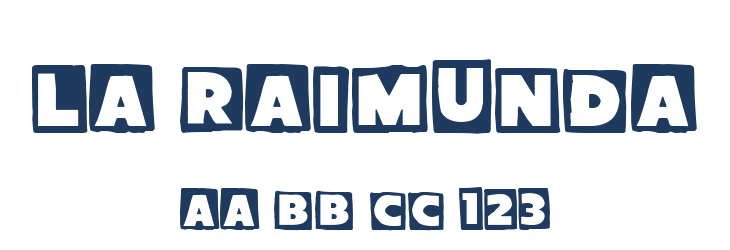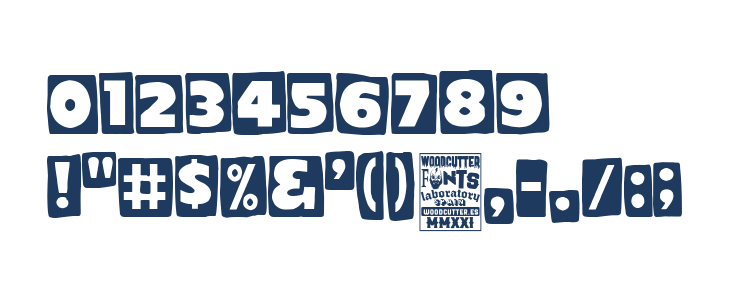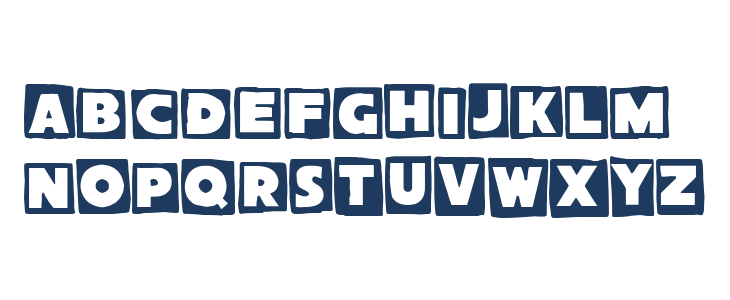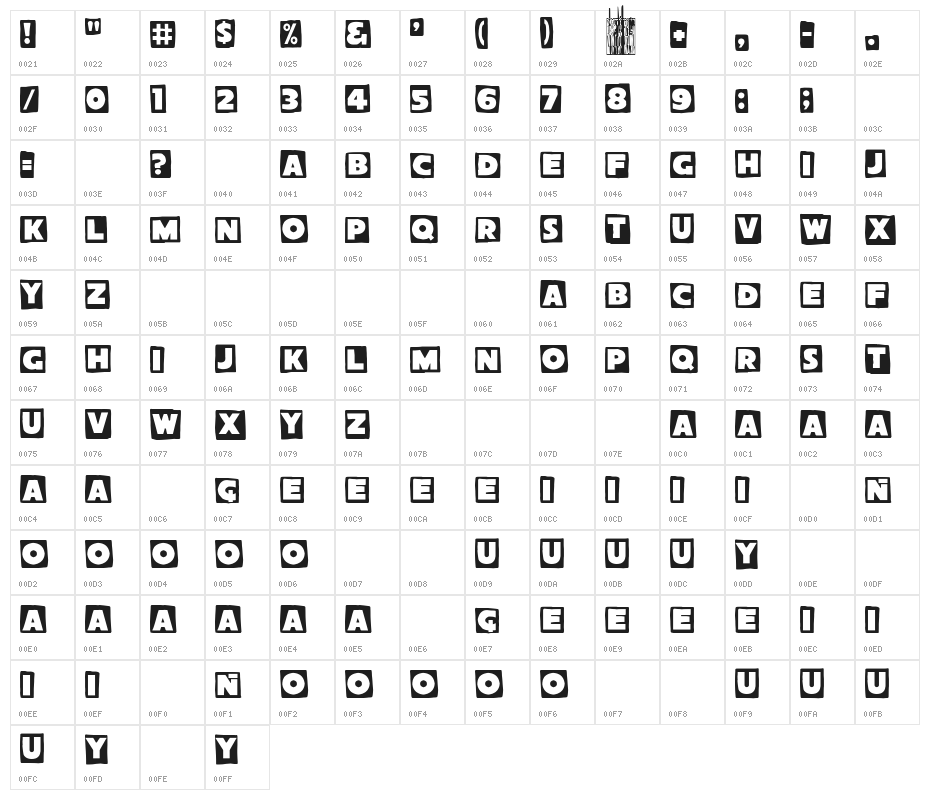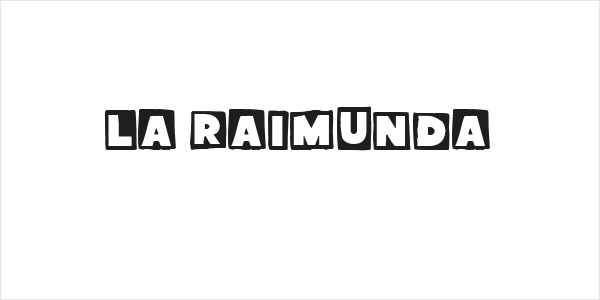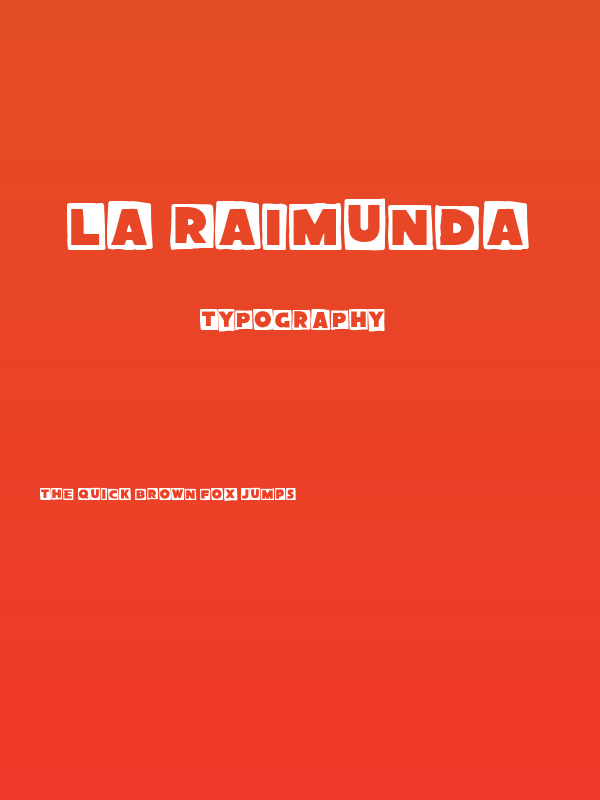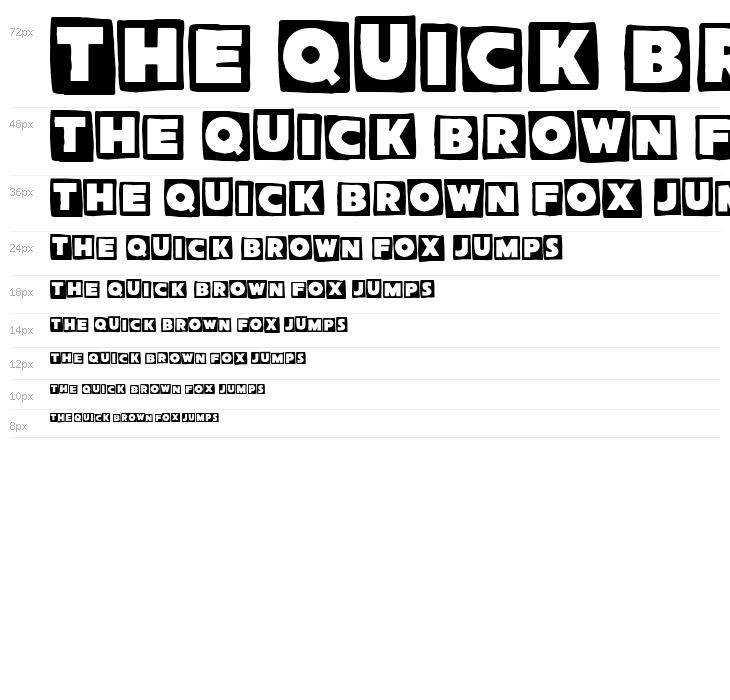
La Raimunda Font
La Raimunda Description
A playful, bold display font with each character set inside an irregular, hand-drawn black square, featuring white uppercase letters, numbers, and symbols with a slightly uneven, cartoonish appearance.
| Overall Style | Playful, Decorative, Cartoonish |
| Use Case | Headlines, Posters, Logos, ChildrenΓ’β¬β’s materials |
| Proposed Projects | ChildrenΓ’β¬β’s books, posters, comic titles, party invitations, playful branding. |